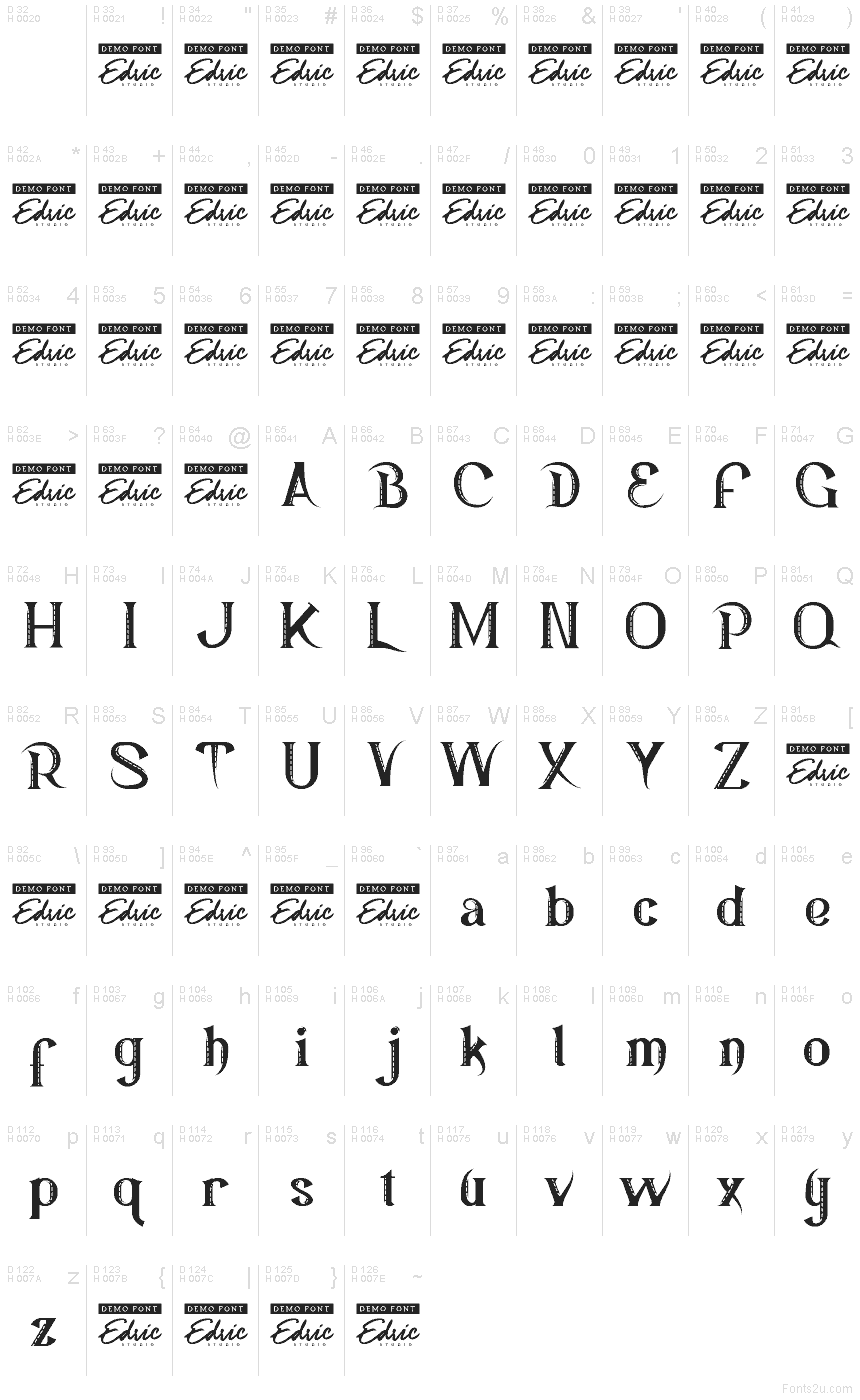
Briana Cora Demo
Briana Cora font by Edric Studio is a free display font with ornate detailing and vintage appeal. The Victorian-inspired typeface features numerous decorative elements, each of which is given special attention. These, along with the thick almost Gothic structure of the characters, give Briana Cora a powerful presence.